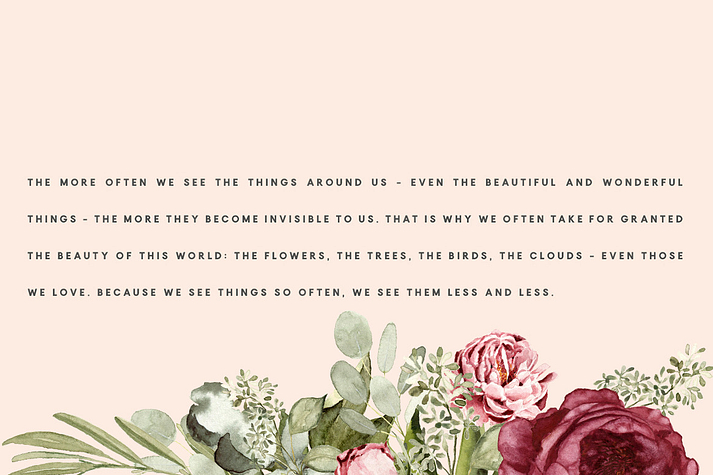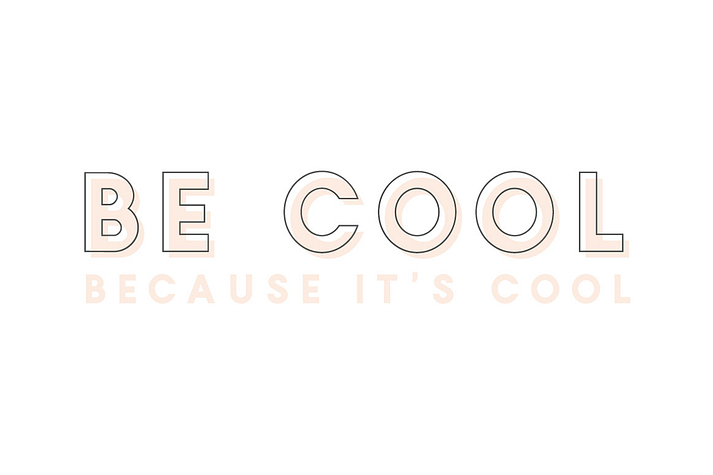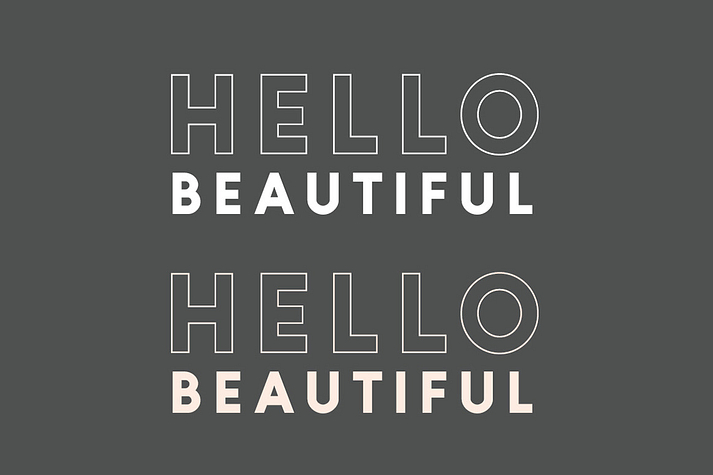
Tokyo
Tokyo is a display sans and stencil font family. This typeface has three styles and was published by Jen Wagner Co.
Tokyo is a bold sans serif font duo with both solid and outlined font files. The outline font automatically offsets, making it really simple to layer these fonts together perfectly. Simply duplicate your "Regular" layer and switch the setting to "Outline", and the type will automatically offset up and to the right for you! If that’s too tricky, we’ve just added a "Tokyo Merged" style that combines the two for you!
Perfect for displays, headers, invitations, save the dates, weddings, and so much more, Tokyo will become a playful staple in your font library!